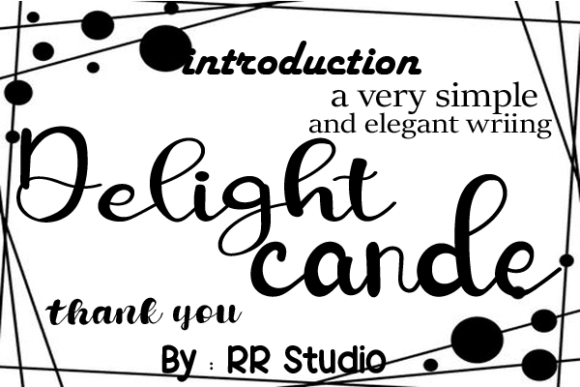
About Delight Cande Font
Delight Cande is a stylish and incredibly elegant handwritten font. It looks stunning on wedding invitations, thank you cards, quotes, greeting cards, logos, business cards, and every other design that needs a handwritten touch.